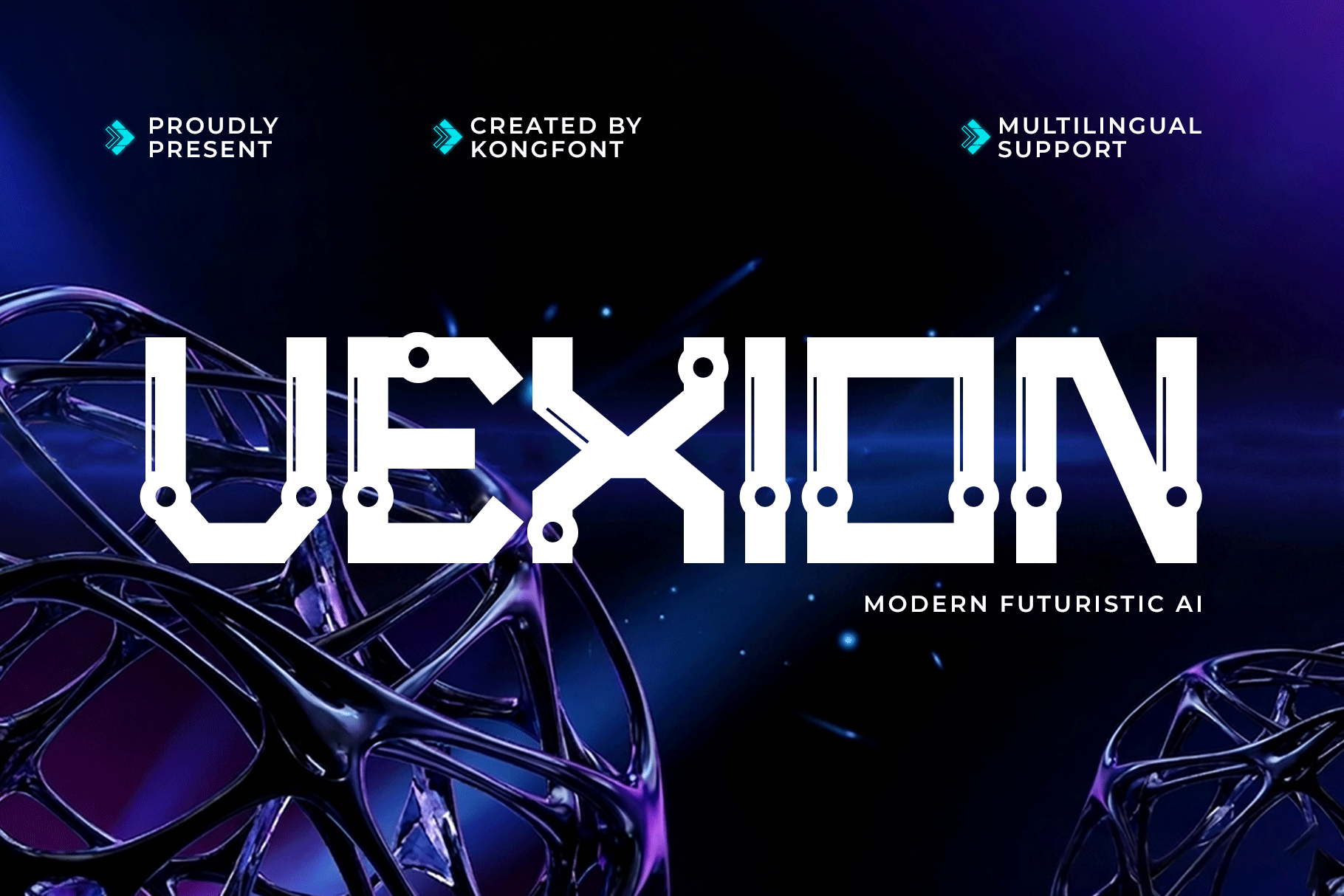
Vexion – Modern Futuristic AI Font
Vexion is a modern futuristic AI font designed to capture the essence of advanced technology, artificial intelligence, and digital innovation. Featuring sleek geometric forms, sharp angles, and futuristic styling, Vexion delivers a cutting edge visual identity perfect for tomorrow’s creative projects.
This typeface includes uppercase and lowercase letters, numerals, punctuation, and multilingual support, ensuring flexibility across both digital and print media. Its modern futuristic structure makes it perfect for impactful headlines, logos, and display typography.